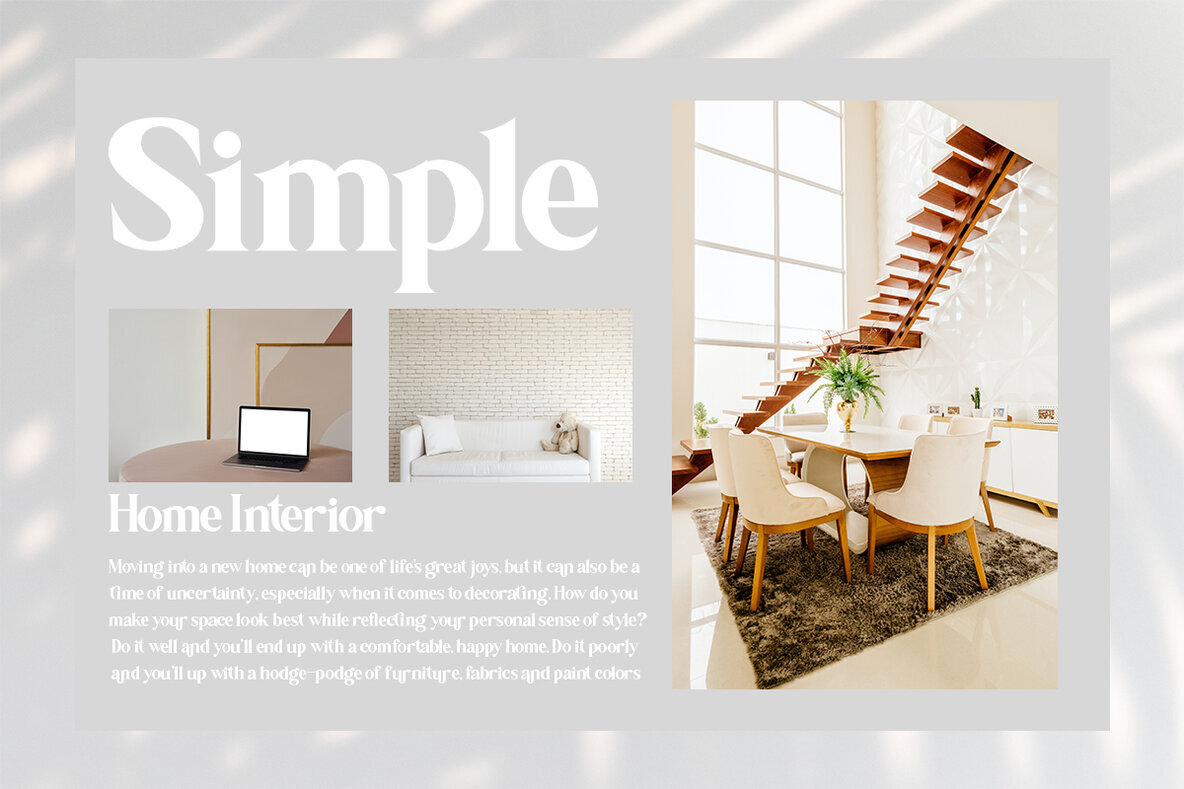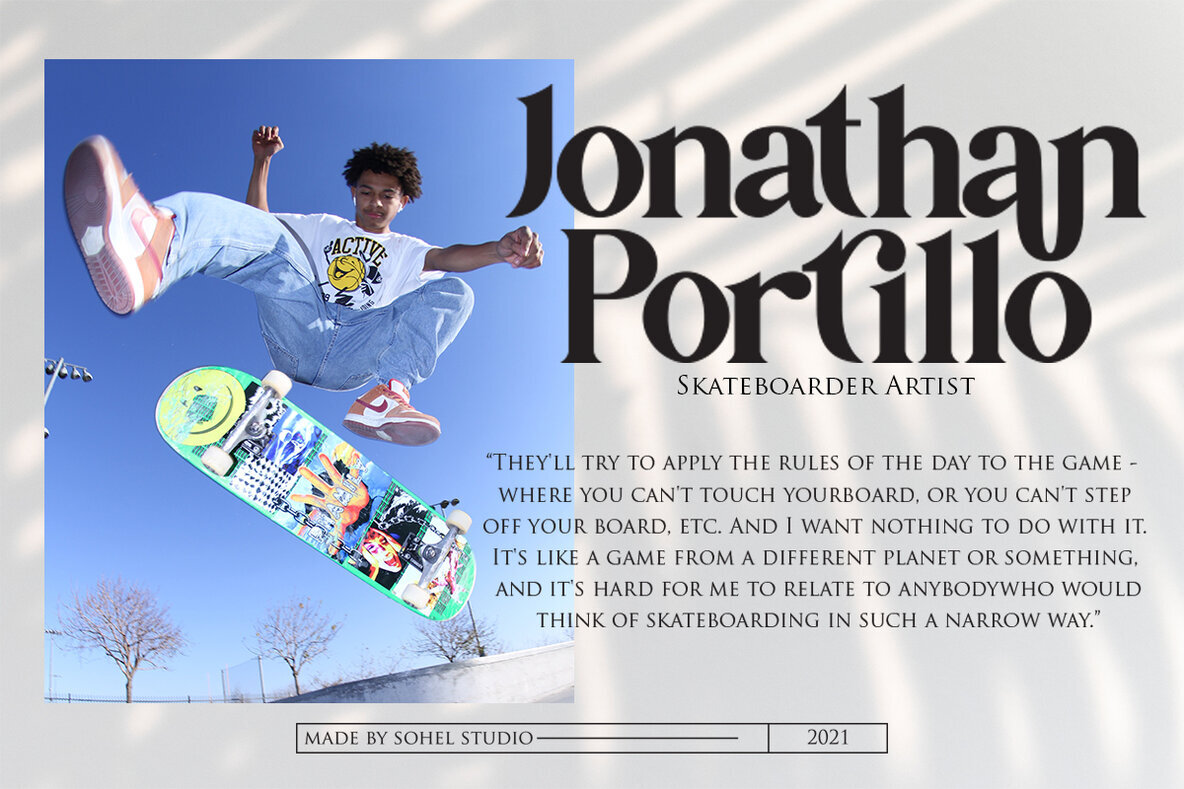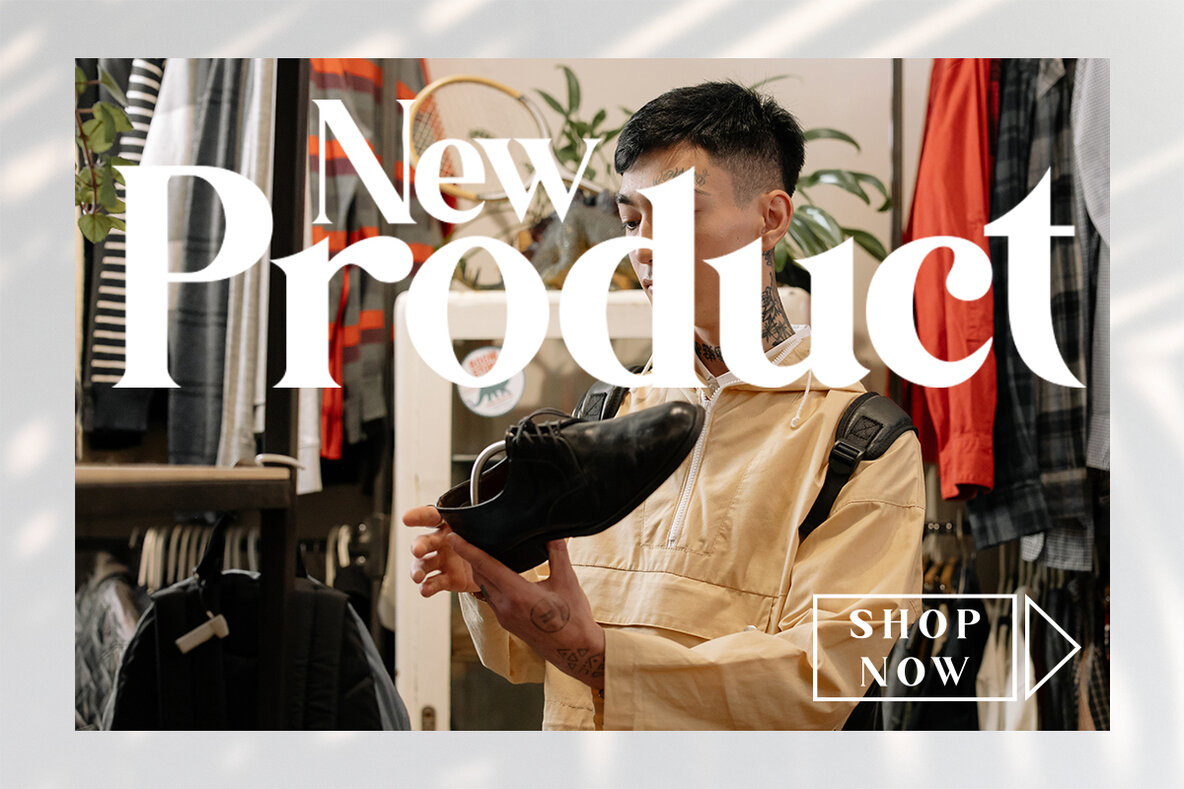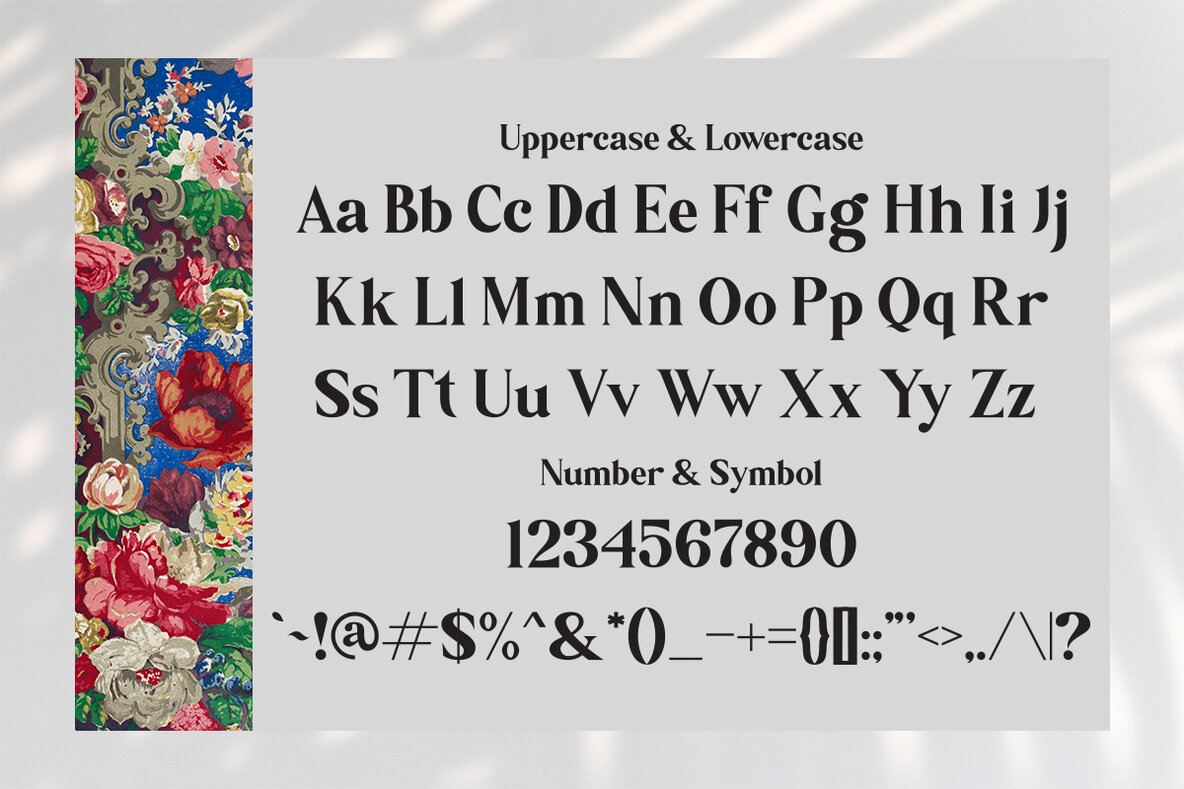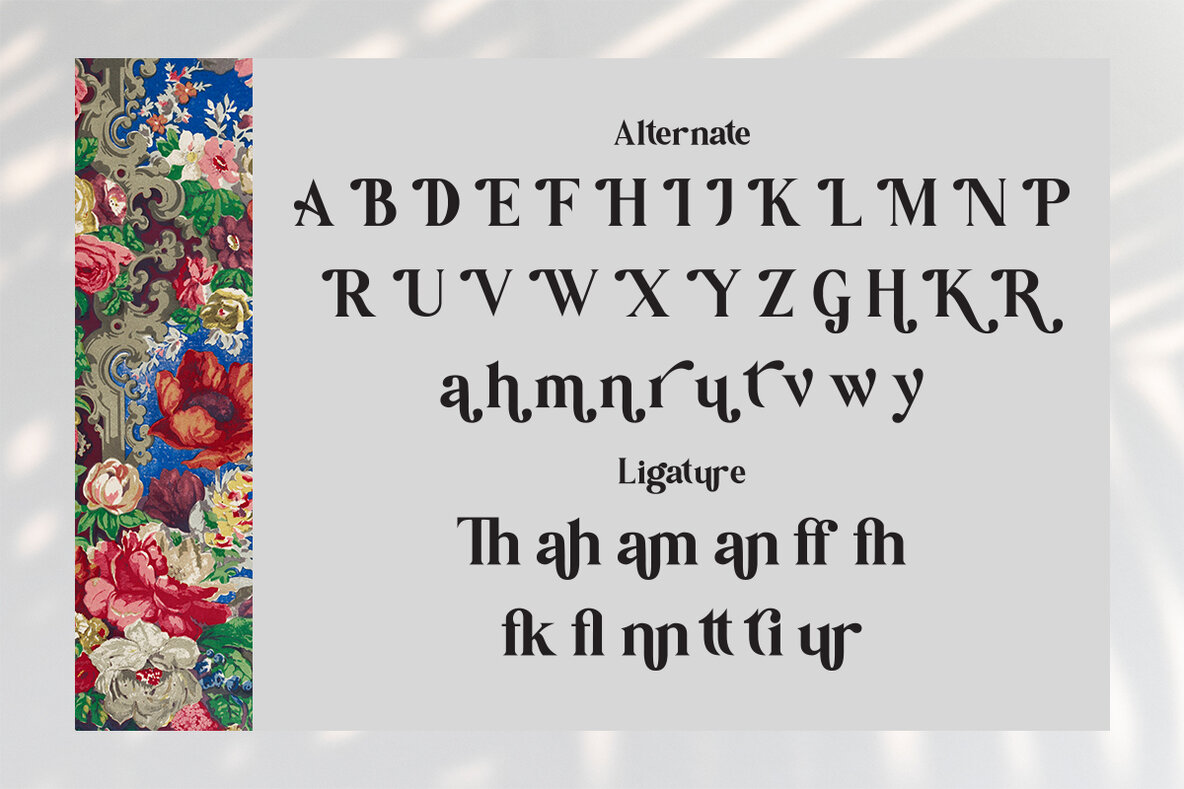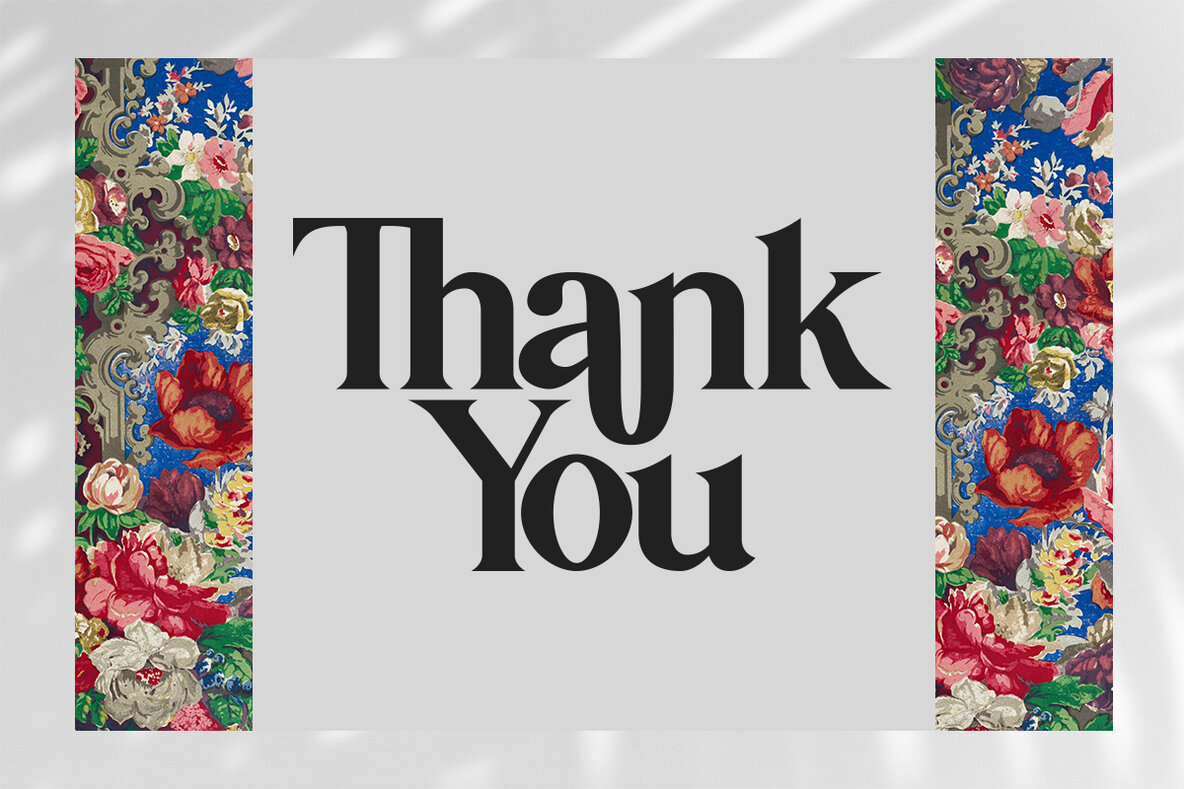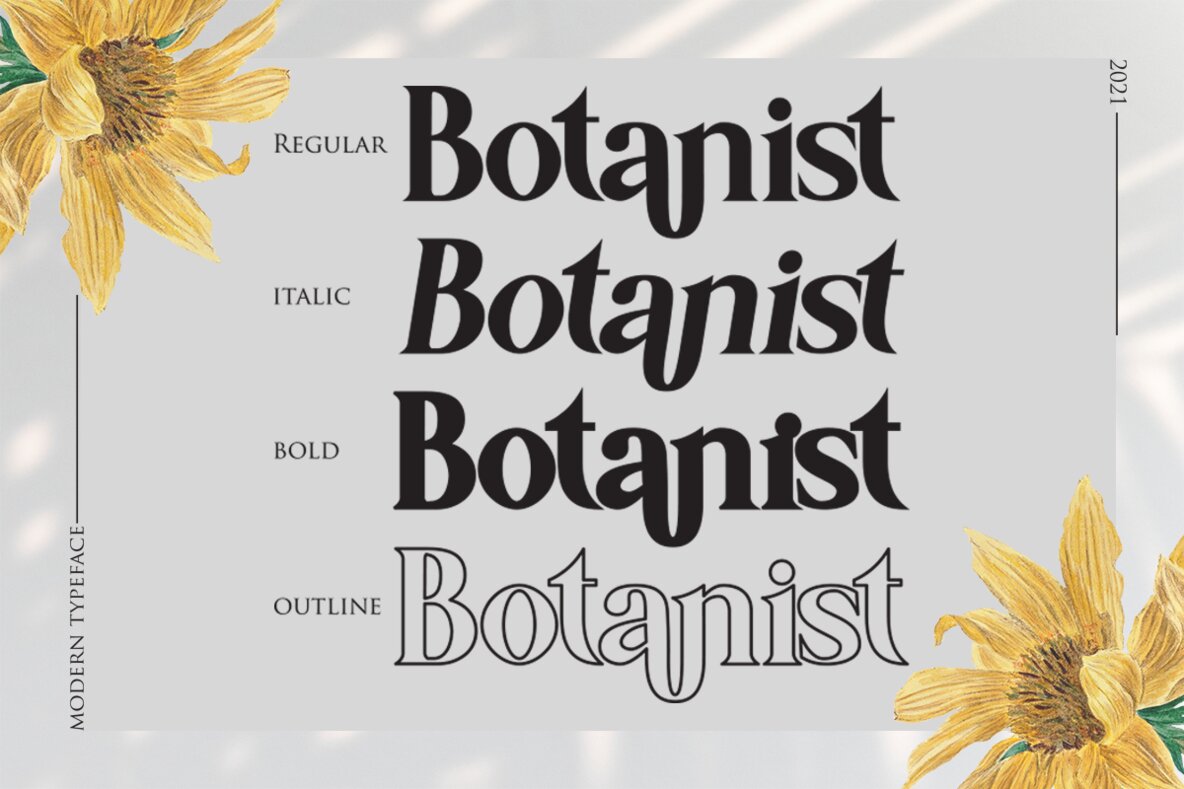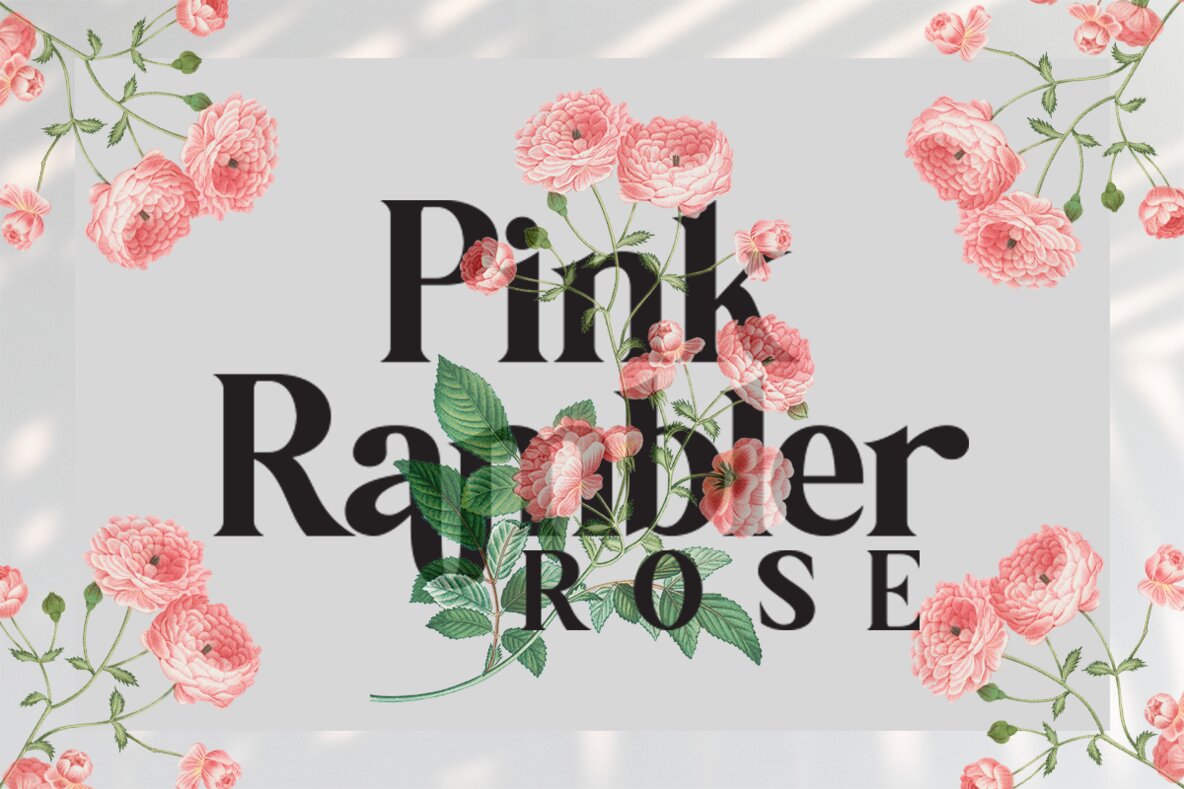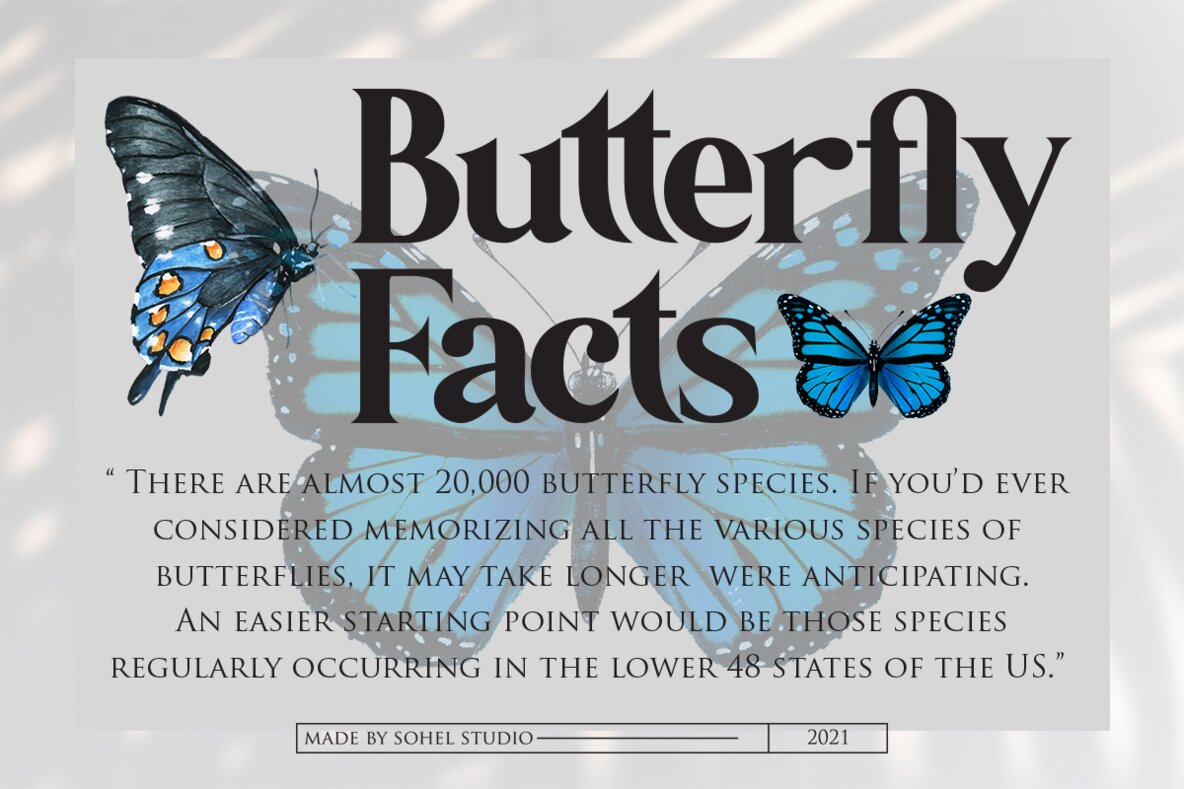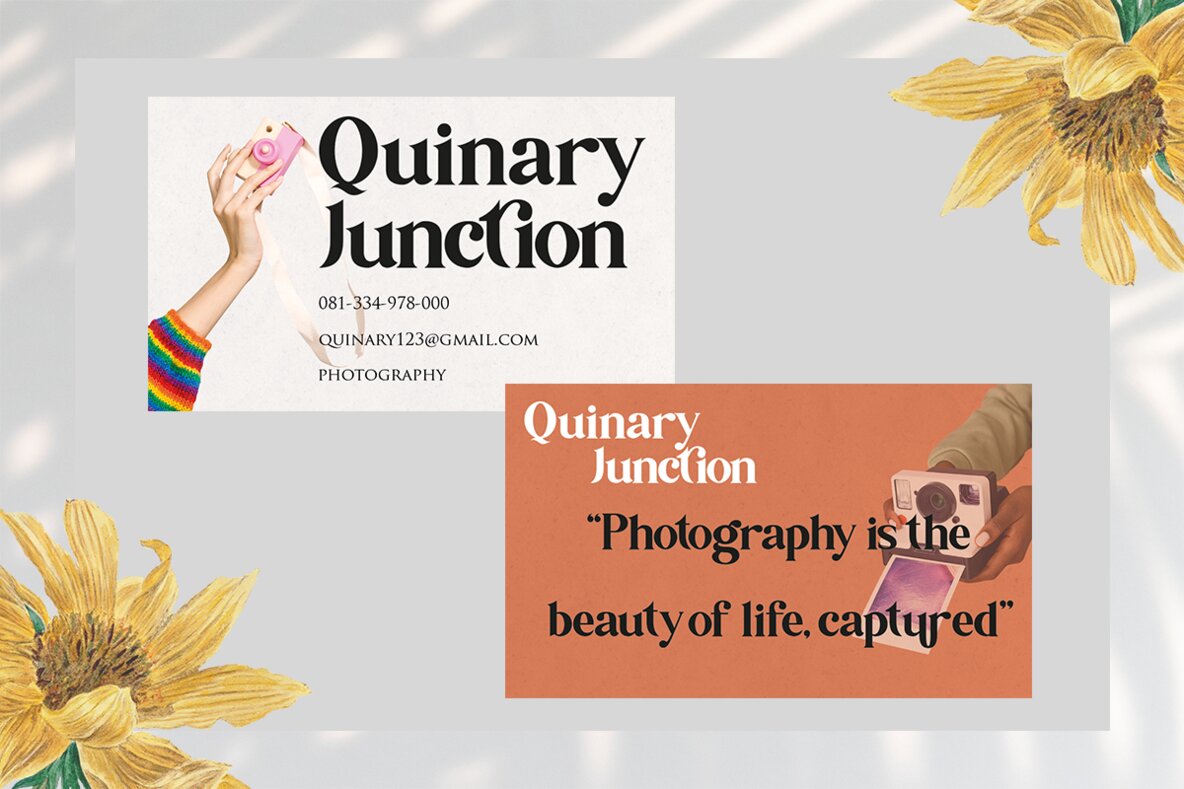
Botanist Font
Botanist is a classy, bold upper and lowercase typeface that looks incredible in both large and small settings. Best used as a display for headings and logos, Botanist clean lines and smooth curves give any project an extra touch of class. Features: 4 Weights font (Regular,Italic,Bold,Outline) - Lowercase and Uppercase - Beautiful Alternates & Ligatures - Numerals & Punctuation - Accented characters - Format File: TTF,OTF - Multilingual HOW TO ACCESS ALTERNATE CHARACTERS Open glyphs panel: - In Adobe Photoshop go to Window - glyphs - In Adobe Illustrator go to Window - Type – glyphs I really hope you'll get pleasure using Botanist font and it will be perfect addition to your font collection! Contact me with an inbox message If you have any question. Thank you and enjoy!